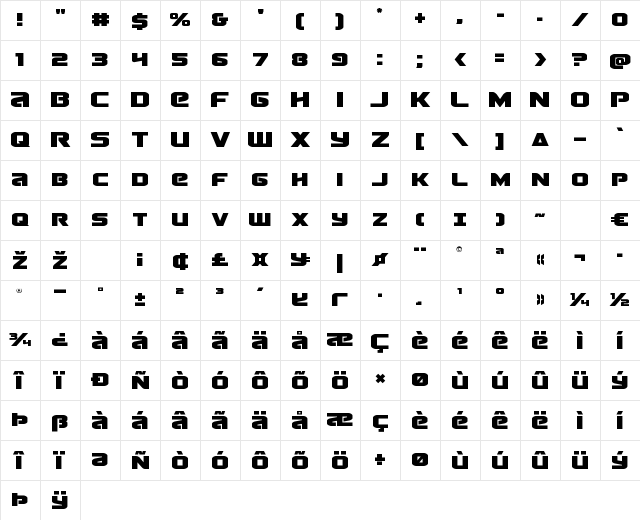
Terran Regular
Terran Family
Design Context for Terran
Terran is a composed and adaptable typeface that performs quietly and consistently across a wide range of design contexts.